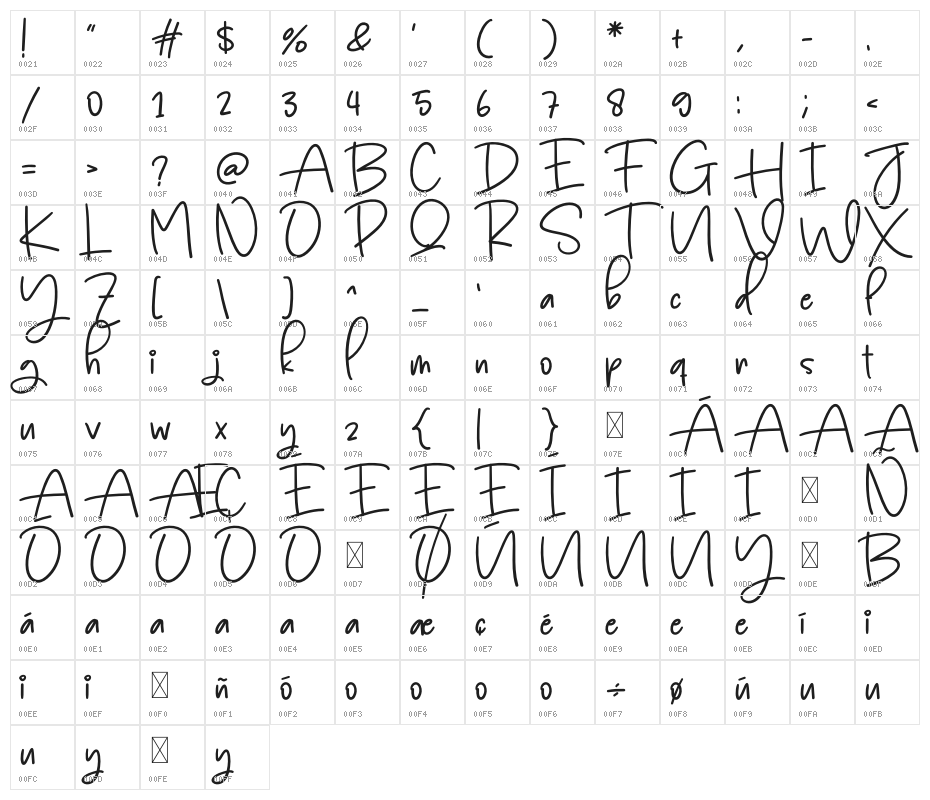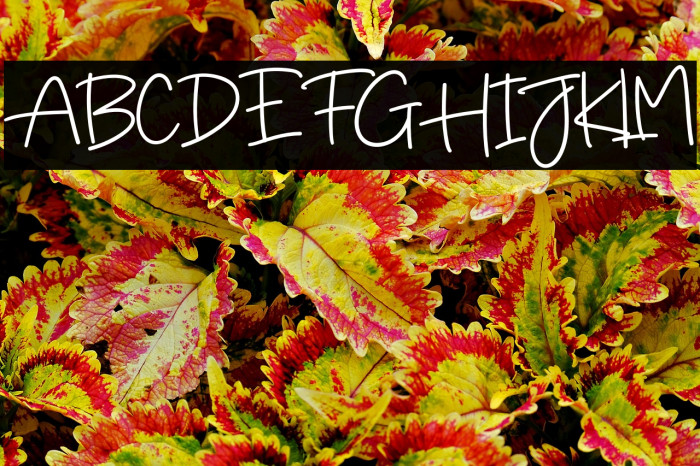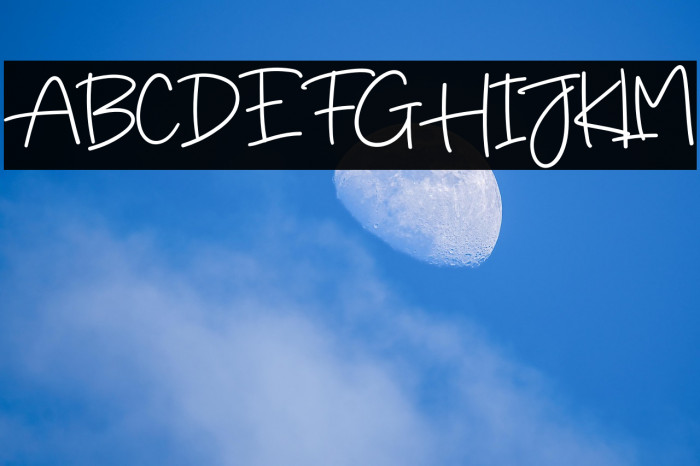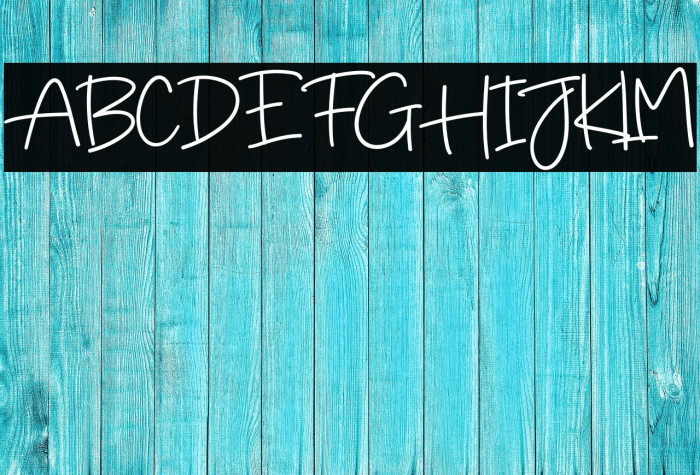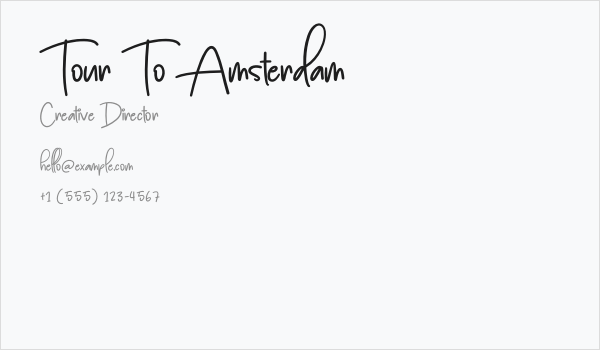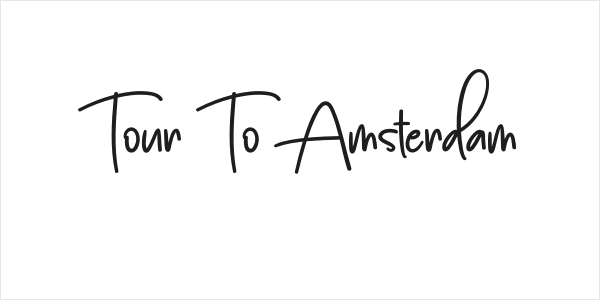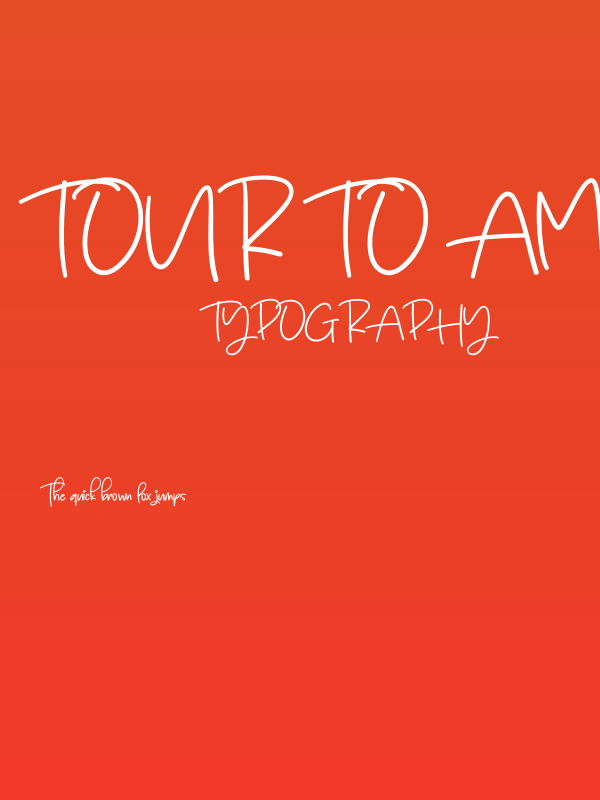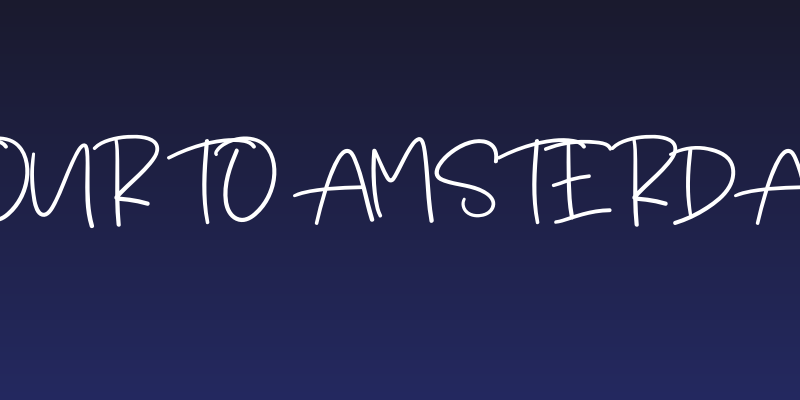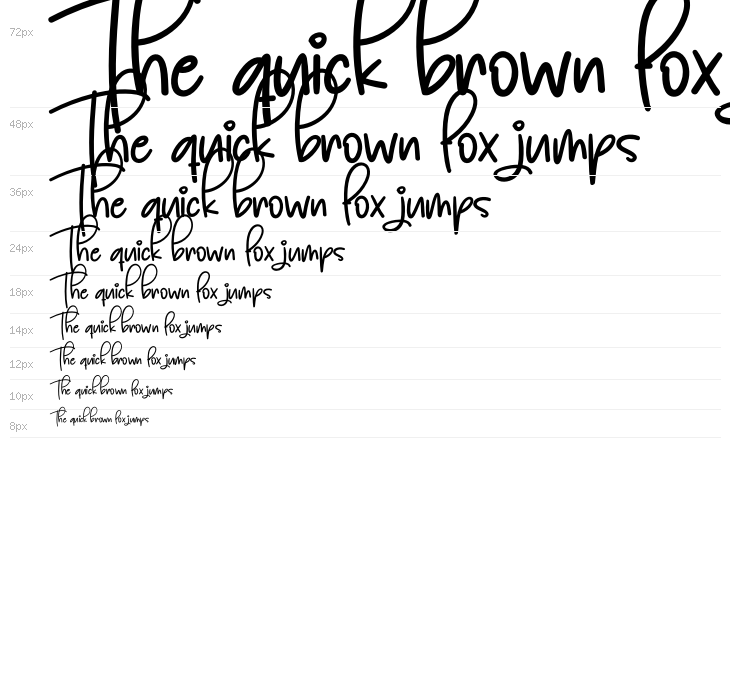
Tour To Amsterdam Font
Tour To Amsterdam Description
This font features a playful and dynamic handwritten style, characterized by its fluid and casual strokes. The uppercase letters are tall and slightly narrow, while the lowercase letters exhibit a more rounded and flowing appearance. The numbers and special characters maintain the same lively and informal aesthetic, making the font suitable for creative and informal applications. The overall look is energetic and youthful, with a touch of spontaneity that adds personality to any design.
Proposed ProjectsIdeal for greeting cards, invitations, posters, and social media graphics where a personal and informal touch is desired.